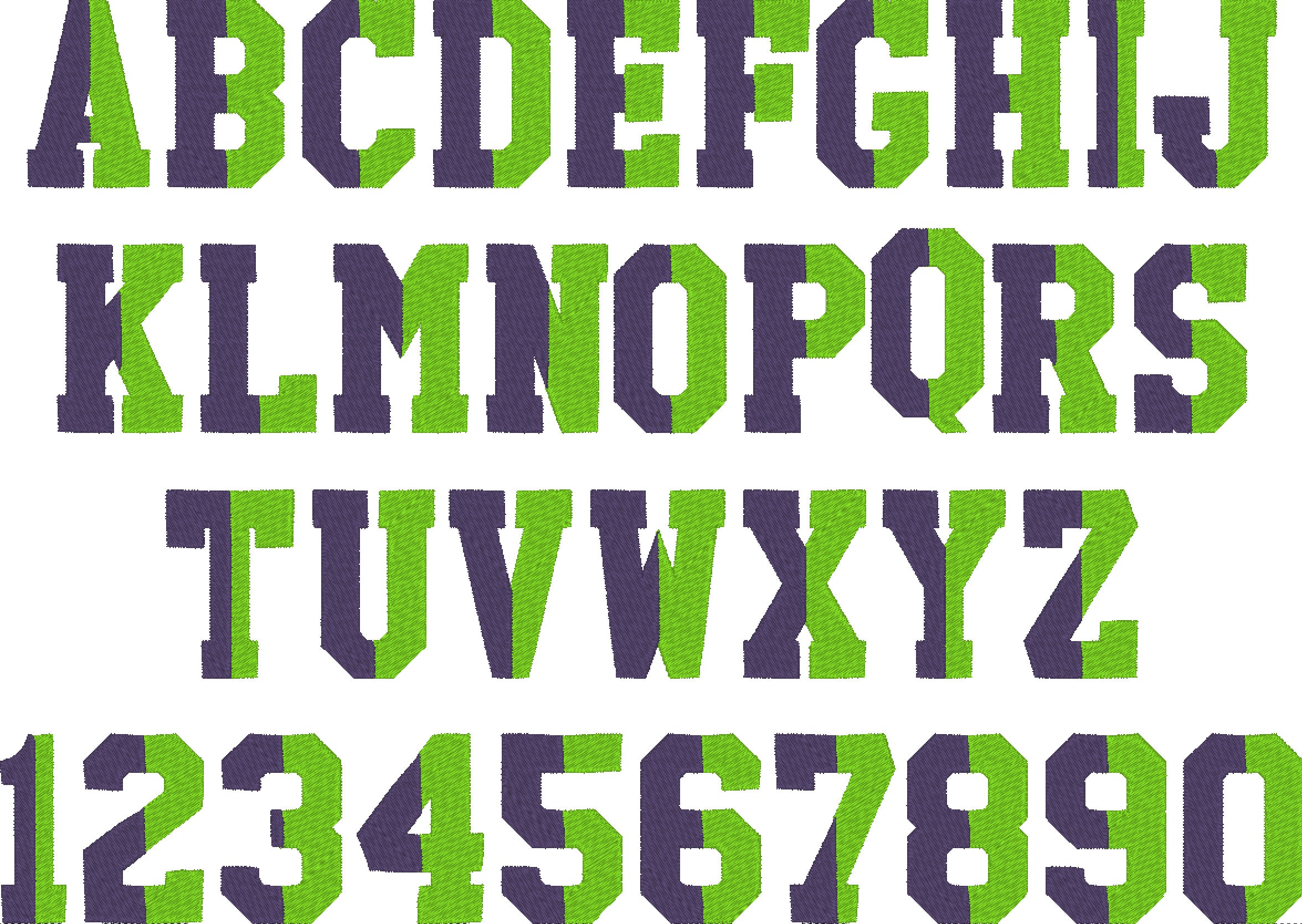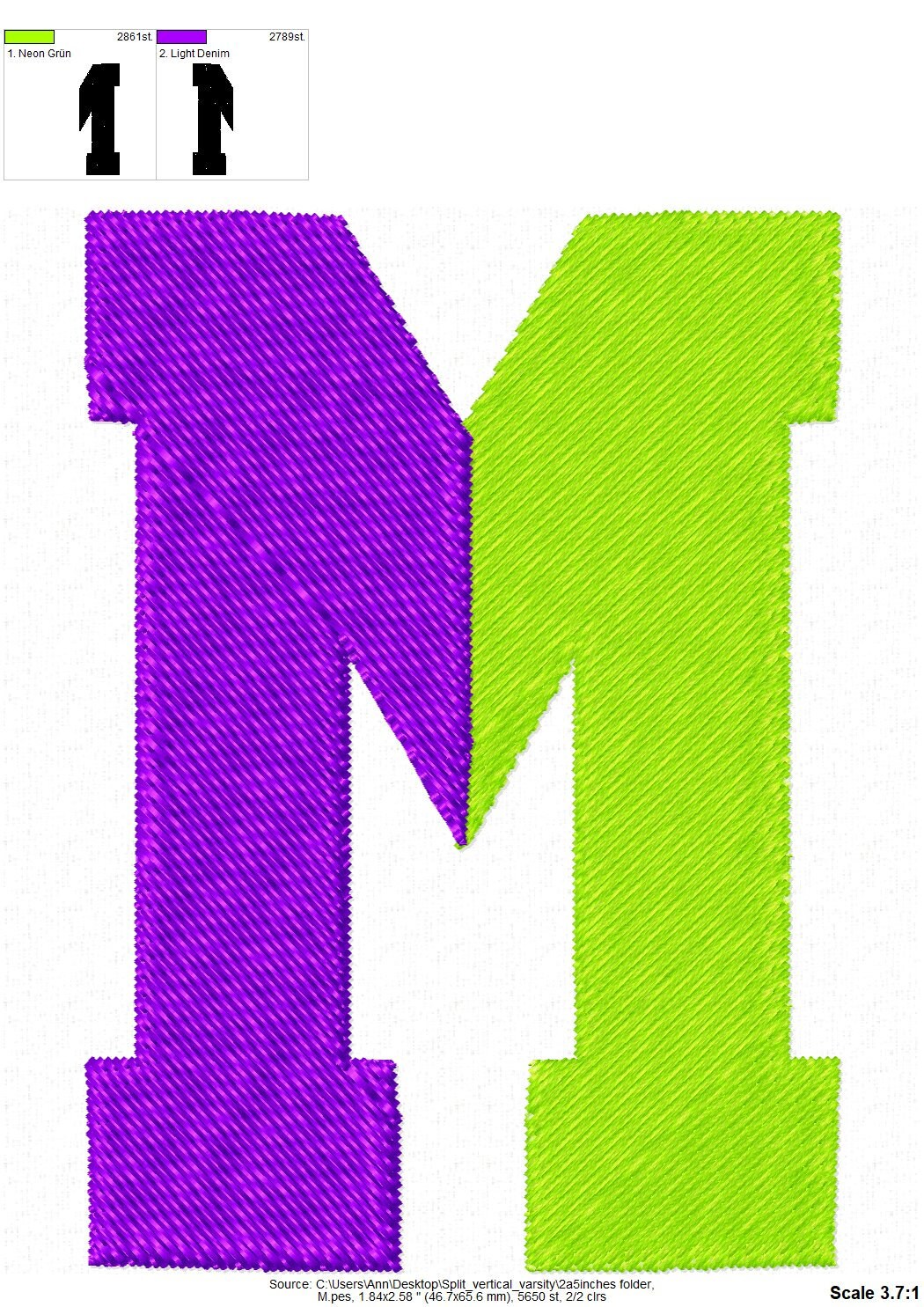
Duo font Varsity split fill stitch 2 color Font Duo color Duotone alphabet machine embroidery designs sizes 1.2 up to 3.5 inch two colors
Whole alphabet uppercase letters A-z, and numbers 0-9.
Fill stitch design